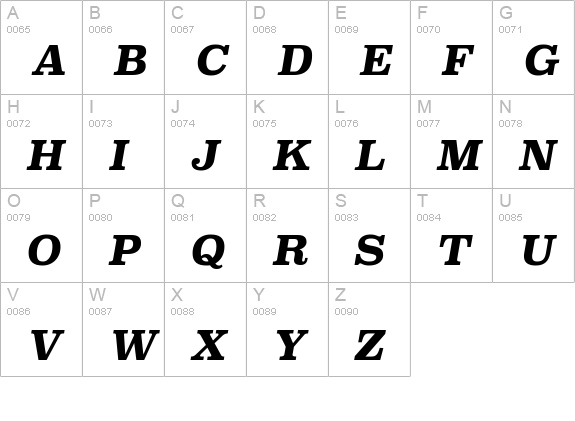
Superclarendon Rg Bold Italic is a strong, high-contrast, italic variant in the Superclarendon typeface family \xE2\x80\x94 well suited to headlines, attention-grabbing titles, and strong calls-to-action.
Superclarendon Rg Bold Italic is a striking and versatile font that exudes confidence and elegance. With its bold weight and elegant italic slant, this typeface commands attention and conveys a sense of sophistication. The strong, sturdy letterforms make it perfect for creating eye-catching headlines, signage, and branding materials. This font is not only visually appealing but also highly readable, making it suitable for a wide range of design projects. Whether you're working on a poster, website, or logo, Superclarendon Rg Bold Italic will surely make your text stand out. Best of all, this font is available for free download at FontsMarket.com. You can easily access and use it in your projects without any restrictions. Don't miss out on this opportunity to enhance your designs with the timeless appeal of Superclarendon Rg Bold Italic.